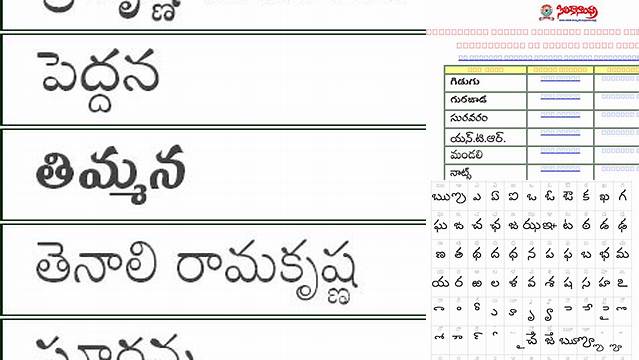
Telugu Fonts On Android: A Guide To Silicon Andhra Fonts
The importance of using Telugu fonts on Android extends beyond mere aesthetics. For many users, it's about maintaining a connection to their cultural heritage and language. Seeing Telugu script on their devices can evoke a sense of familiarity and belonging. Moreover, using the correct fonts ensures that the text is rendered accurately, which is crucial for clear communication and comprehension. Imagine reading a message or an article where the characters are distorted or missing – it can be incredibly frustrating! This is why choosing the right font, like those offered by Silicon Andhra, is so vital. These fonts are designed to display Telugu characters perfectly, preserving the nuances and beauty of the script. Furthermore, the availability of Telugu fonts enhances the accessibility of technology for Telugu speakers. It allows them to engage with digital content in their native language, fostering a more inclusive and user-friendly experience. This is particularly important in a world where digital communication is becoming increasingly prevalent. By providing access to quality Telugu fonts, we're not just improving the look of text; we're empowering individuals to connect, communicate, and participate in the digital world more effectively. So, let’s explore how to make this a reality on your Android device.
Let's start with the basics: What exactly is Silicon Andhra? Silicon Andhra is a non-profit organization dedicated to promoting Telugu culture and language worldwide. They've been doing some amazing work, especially in the digital realm, by developing resources like Telugu fonts, software, and educational materials. Their mission is to keep the Telugu language vibrant and accessible in the modern world, and their fonts are a big part of that effort. The organization plays a crucial role in bridging the gap between traditional Telugu culture and modern technology. By focusing on digital resources, Silicon Andhra ensures that the Telugu language remains relevant and accessible to future generations. This is particularly important in a globalized world where languages can easily be overshadowed by dominant ones. Silicon Andhra's initiatives help to counteract this trend by providing the tools and resources necessary for Telugu to thrive in the digital age. They offer a wide range of resources, including not just fonts, but also educational materials, software applications, and online platforms. These resources cater to diverse needs, from individuals looking to improve their Telugu reading and writing skills to organizations aiming to incorporate Telugu into their digital communications. The organization's commitment extends beyond simply providing resources; they also foster a community of Telugu speakers and enthusiasts, creating a space for collaboration and cultural exchange. This sense of community is a vital component of their mission, as it ensures that their efforts are sustainable and impactful. Through their various programs and initiatives, Silicon Andhra has become a cornerstone of the Telugu-speaking community worldwide, working tirelessly to preserve and promote their language and culture.
So, why should you specifically go for Silicon Andhra's Telugu fonts? Well, there are several compelling reasons. First off, these fonts are designed with readability in mind. They ensure that the Telugu script looks clear and crisp on your screen, which makes reading a pleasure. Secondly, Silicon Andhra offers a variety of font styles, so you can find one that suits your taste. Plus, these fonts are often free to use, which is a huge bonus! When it comes to choosing fonts, especially for languages with complex scripts like Telugu, readability is paramount. A font might look aesthetically pleasing, but if it's difficult to read, it defeats its purpose. Silicon Andhra fonts are meticulously crafted to ensure that each character is distinct and easily recognizable. This is achieved through careful attention to letterforms, spacing, and overall design. The result is a font that minimizes eye strain and enhances the reading experience, whether you're browsing the web, reading an e-book, or composing a message. The variety of font styles offered by Silicon Andhra is another significant advantage. Different contexts call for different fonts – a formal document might require a more traditional and elegant typeface, while a casual message might benefit from a more playful and modern design. Silicon Andhra caters to these diverse needs by providing a range of options, allowing users to express themselves and communicate effectively in various situations. And of course, the fact that these high-quality fonts are often available for free is a major draw. It democratizes access to good typography, enabling anyone to use Telugu script beautifully and legibly on their devices. This commitment to accessibility reflects Silicon Andhra's broader mission of promoting the Telugu language and culture to a global audience.